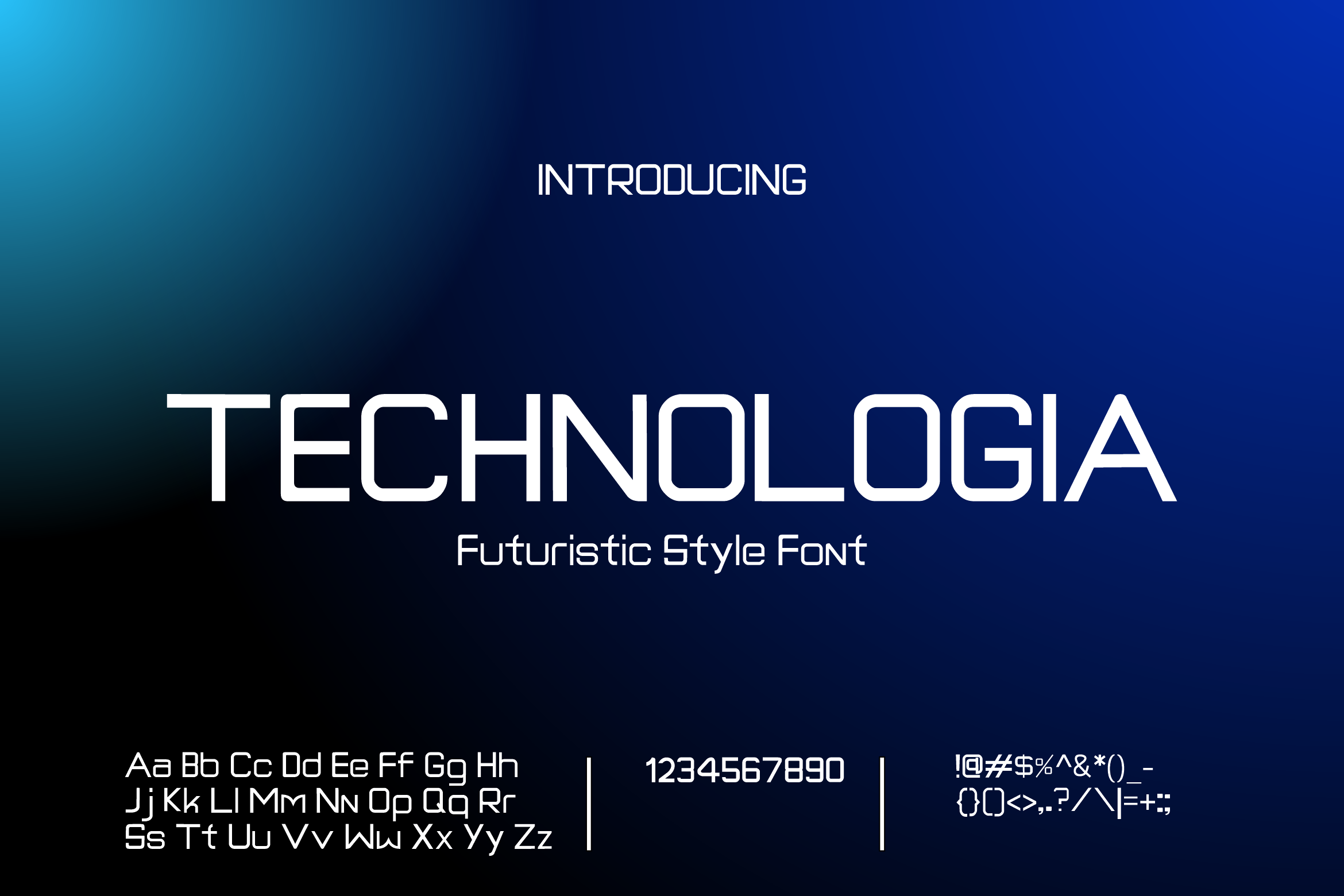
Technologia technologi font
Technologia Discover Technologia, a modern and versatile font designed to elevate your creative projects with a sleek, futuristic vibe. Perfectly crafted with clean lines and balanced proportions, Technologia fits a wide variety of design needs — from branding and logos to headlines, posters, websites, and editorial layouts.
Ideal for technology-themed designs, digital media, futuristic branding, and modern advertising campaigns
Usage: Technologia is perfect for graphic designers, creative agencies, web designers, and branding professionals seeking a clean, stylish font that stands out in any digital or print project.
Elevate your design work with Technologia — where modern aesthetics meet professional quality.